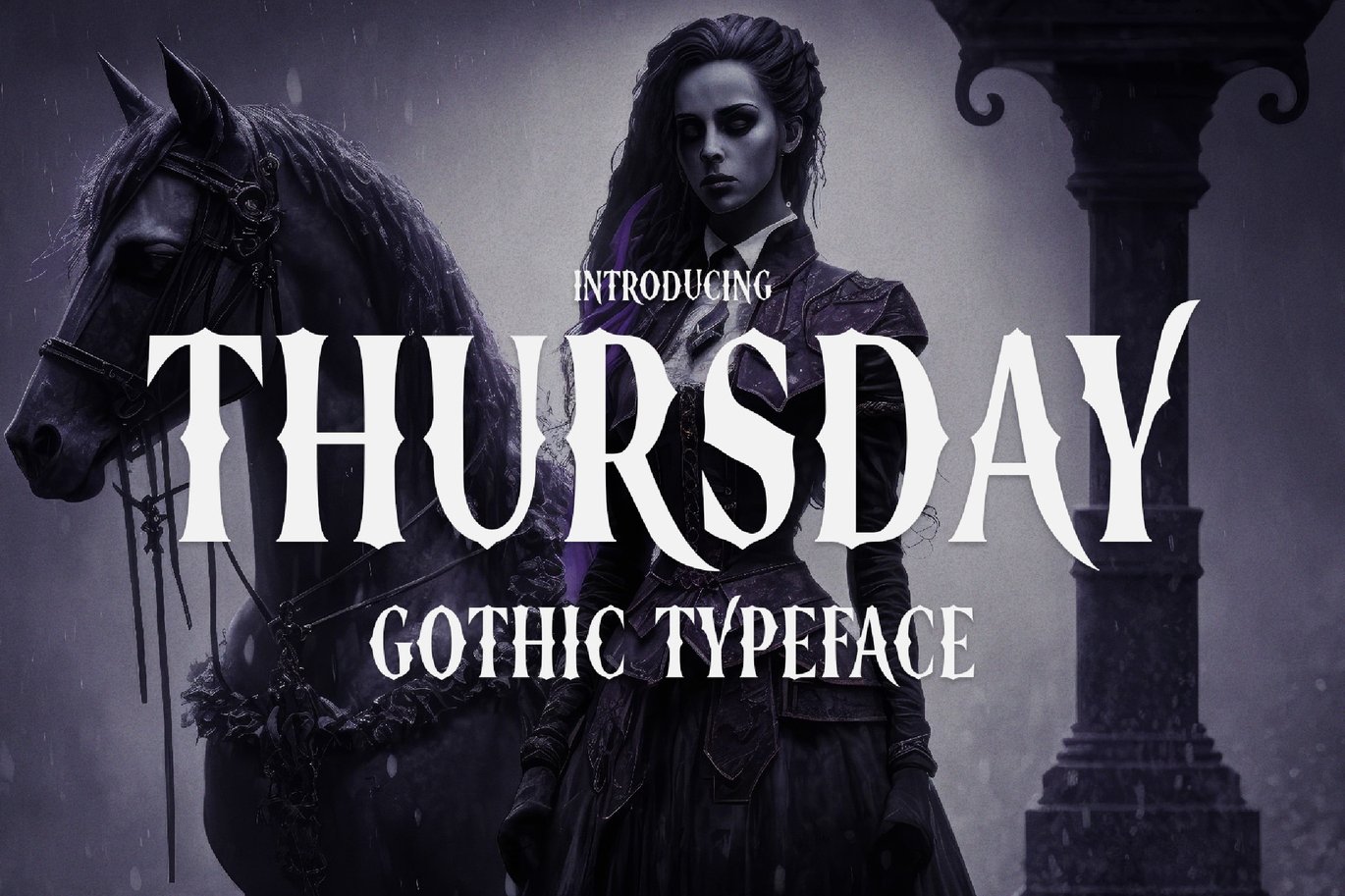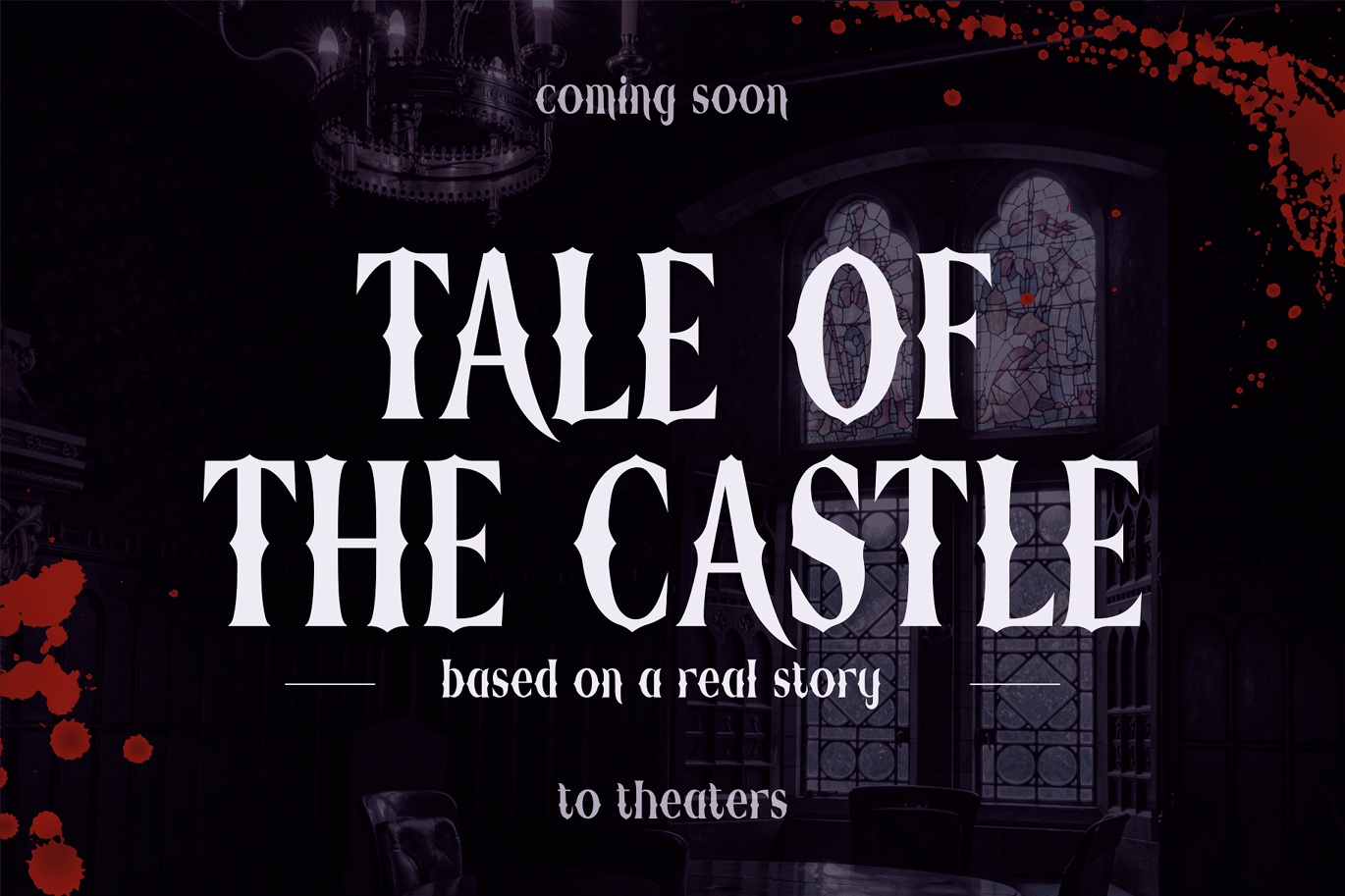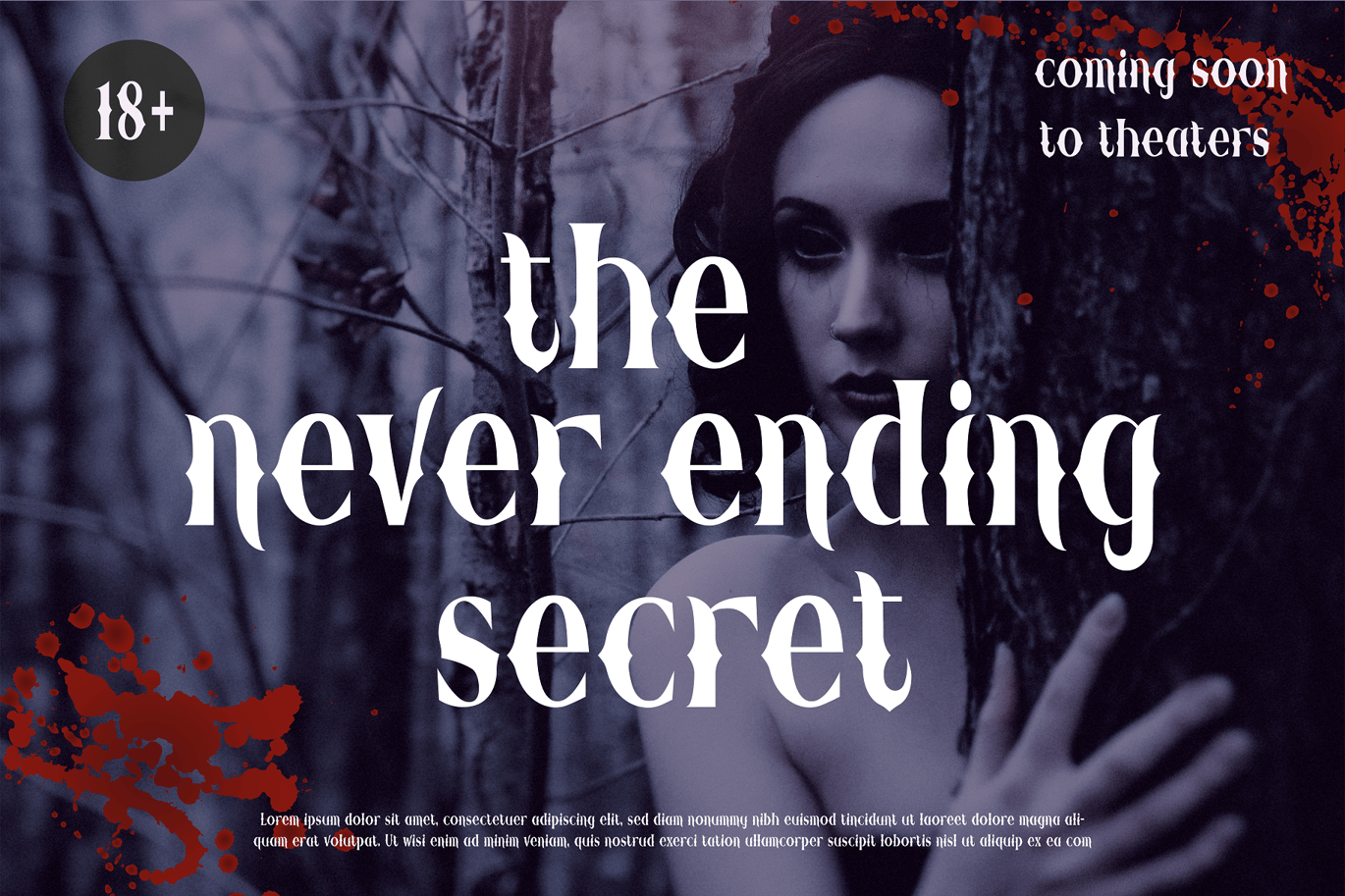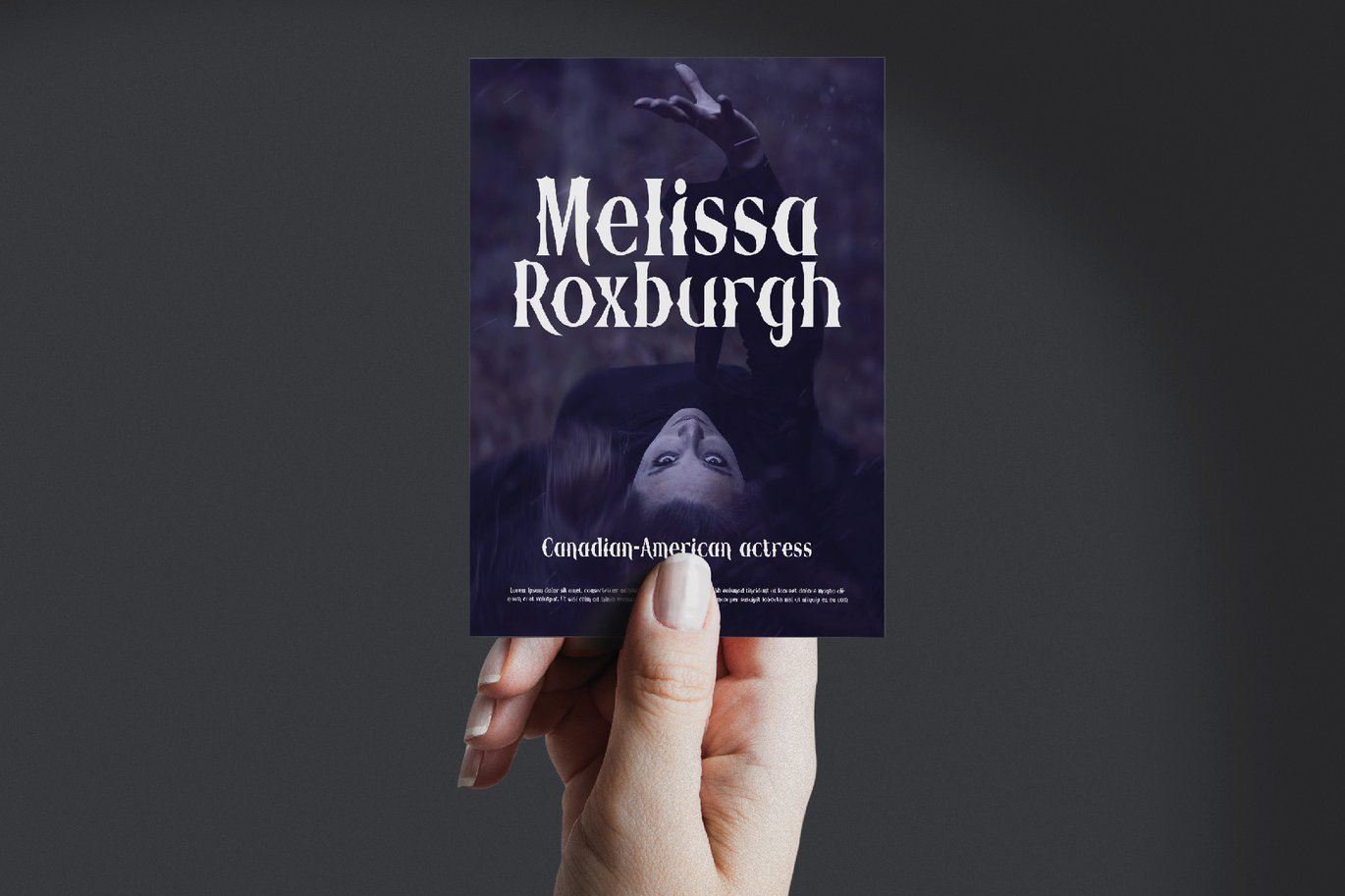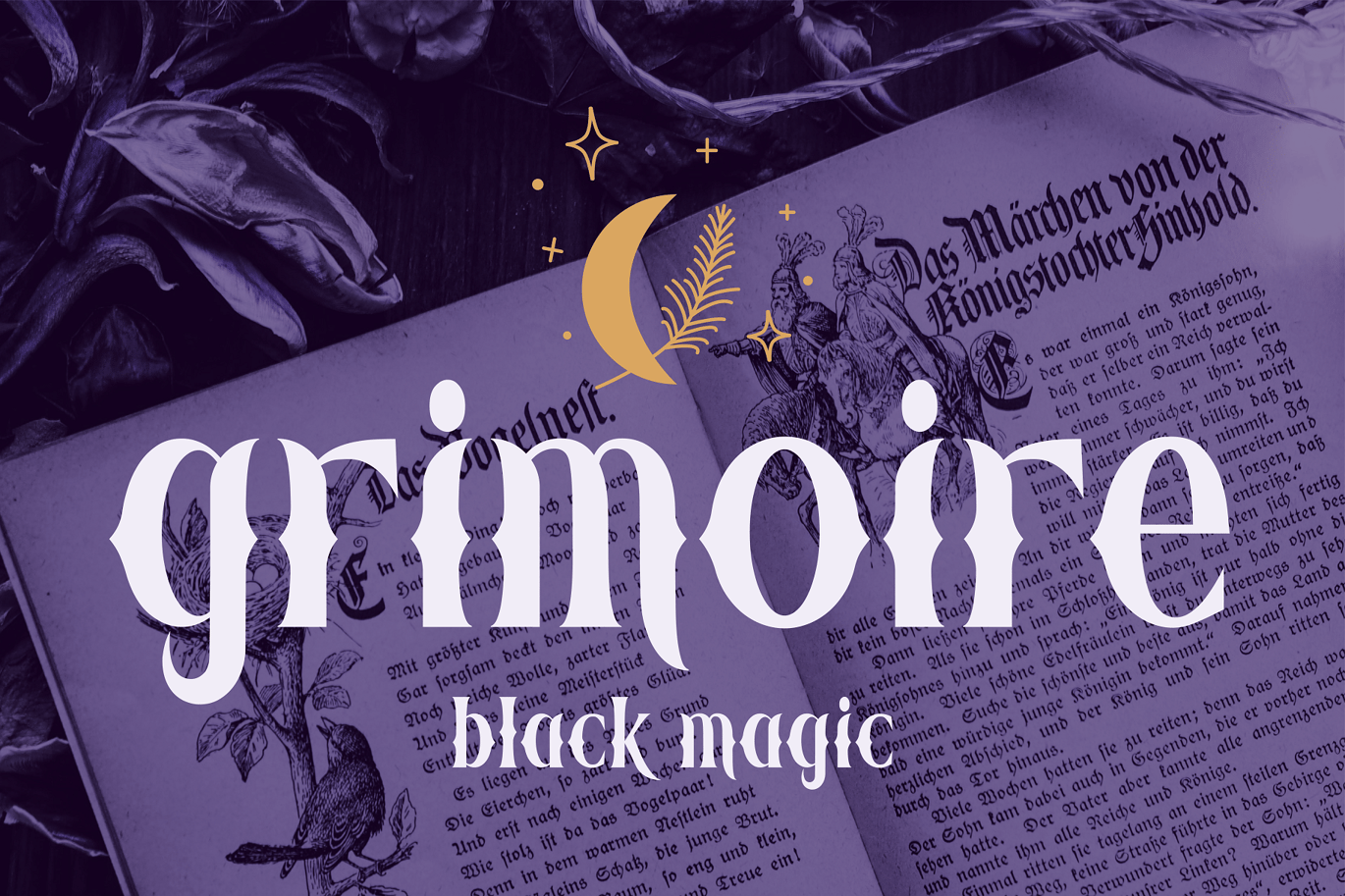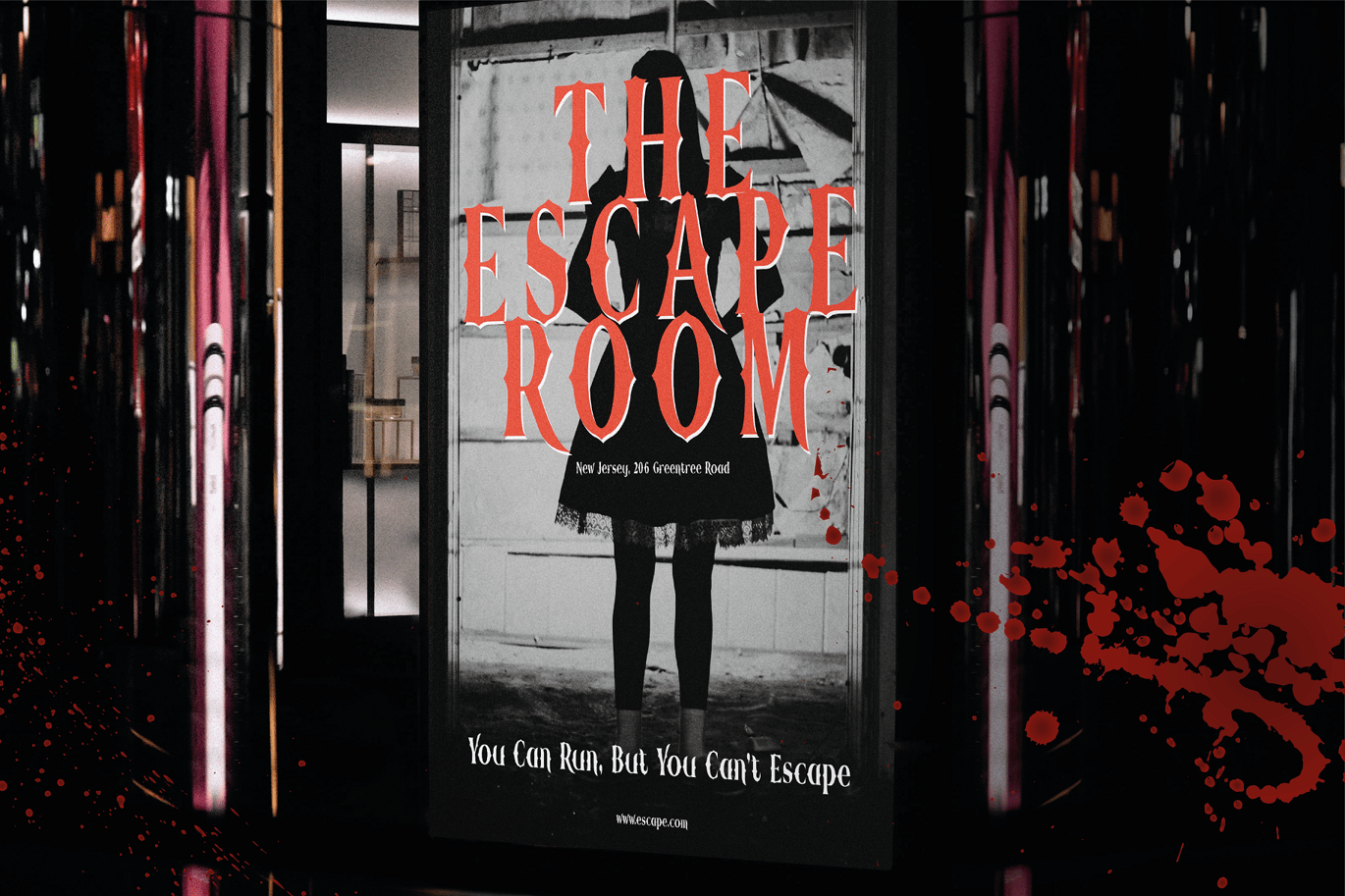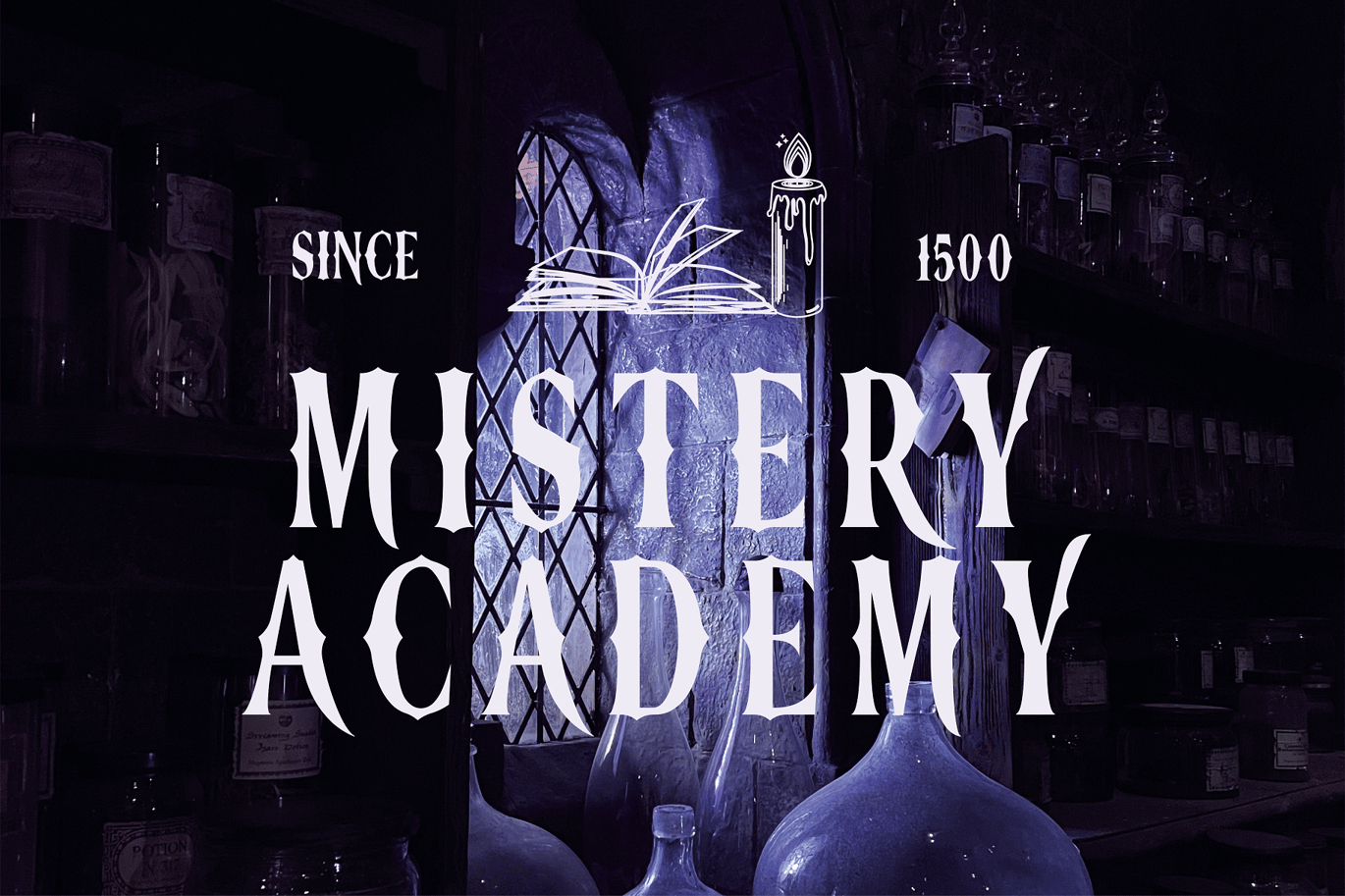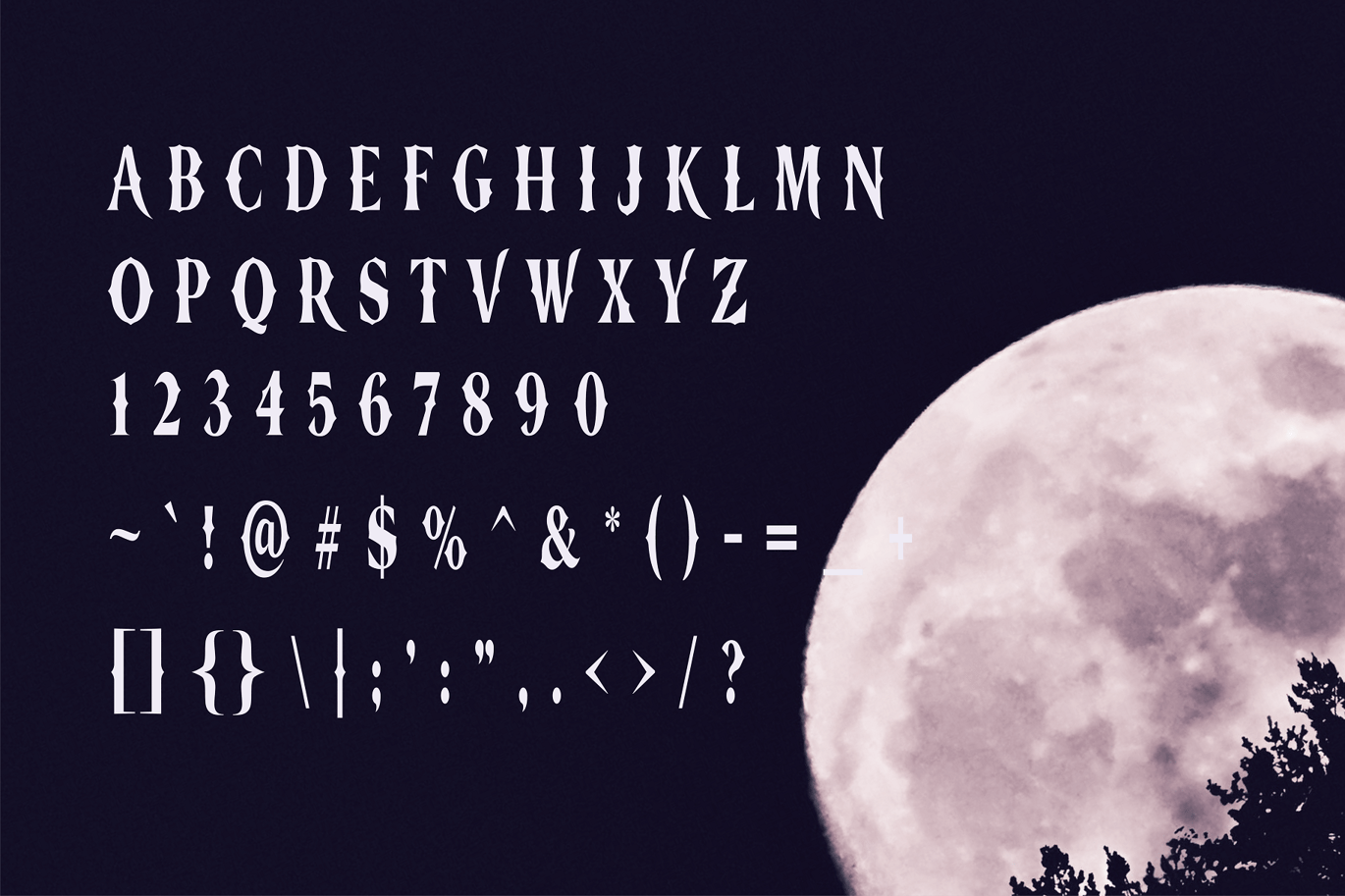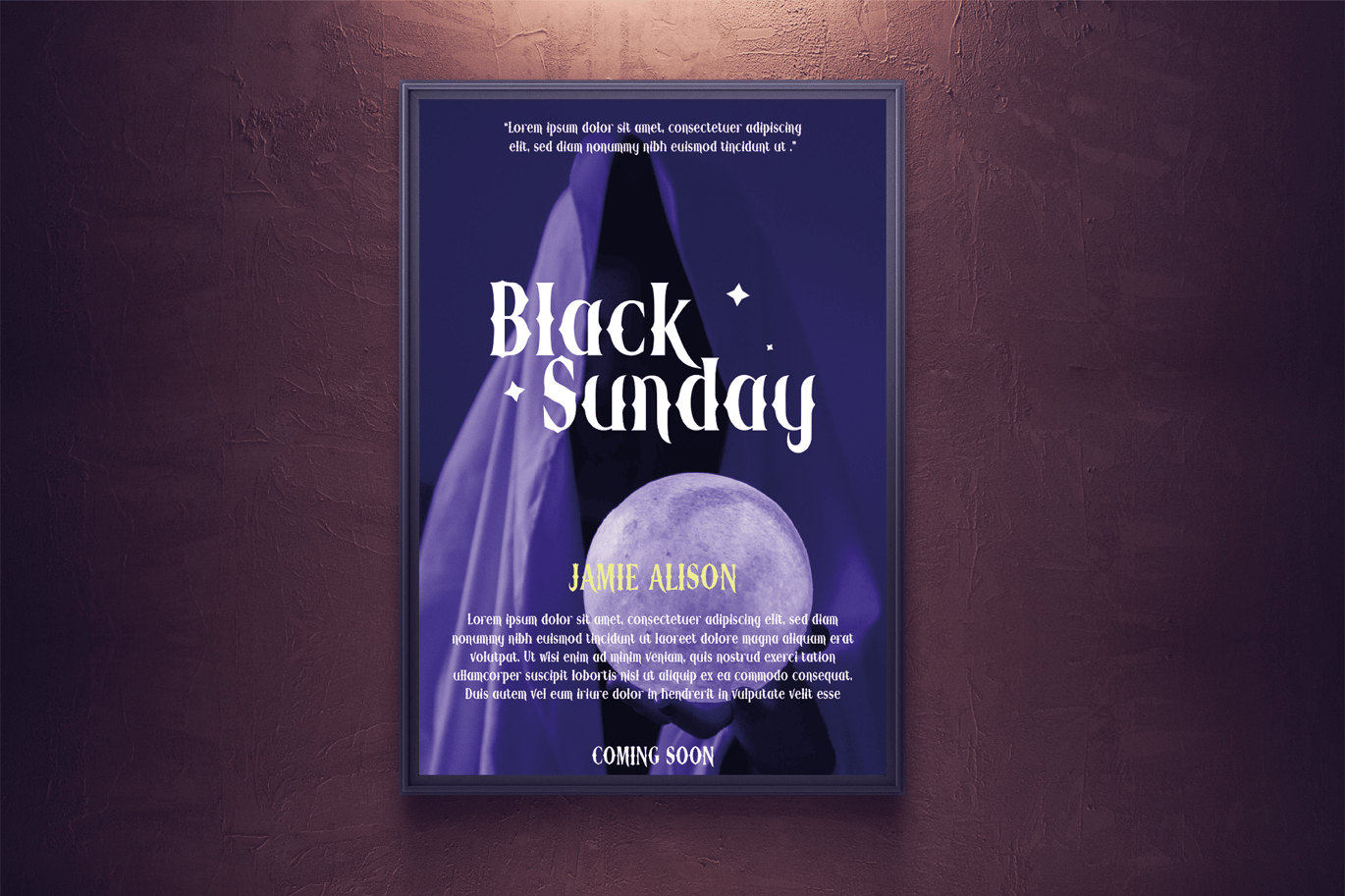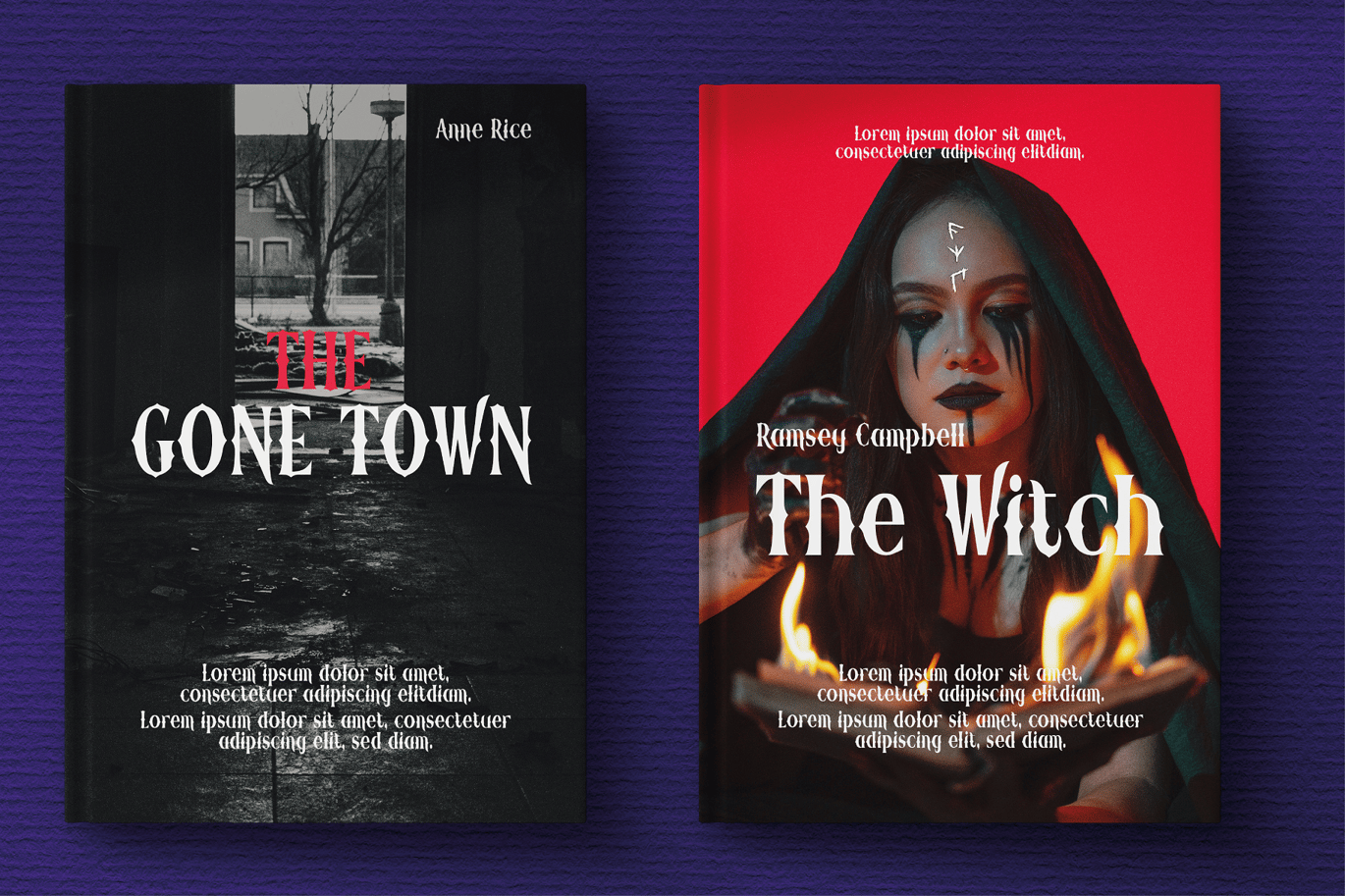
Thursday – Gothic Typeface
Thursday is a gothic serif typeface. Each letter is delicately crafted, creating a stunning and dramatic design that’s perfect for conveying a sense of mystery and sophistication. With its intricate details and beautiful serifs, Thursday is perfect for a wide range of projects. You can use it for book covers, movie titles, headlines, magazines, thumbnails. posters, the list goes on and on.
Each letter is a character in its own right, drawing you into a world of dark enchantment and captivating tales. With Thursday, you can add a touch of gothic elegance and intrigue to your designs, transporting your audience to a world of dark fantasy. Create something eerie and captivating today with Thursday.